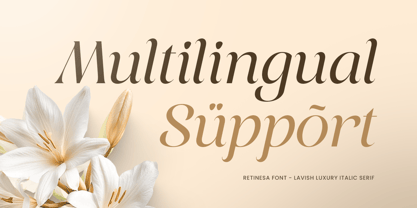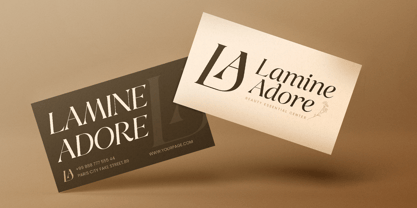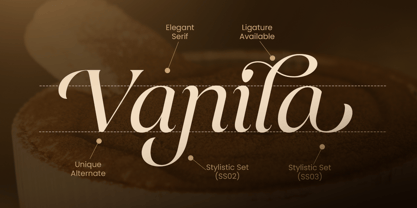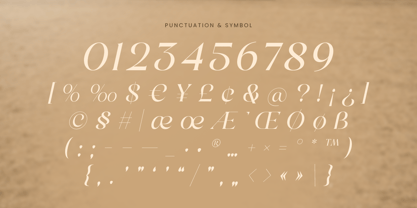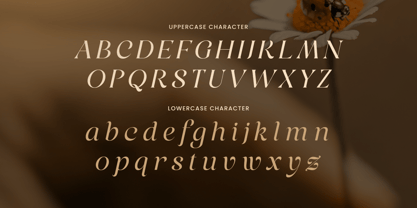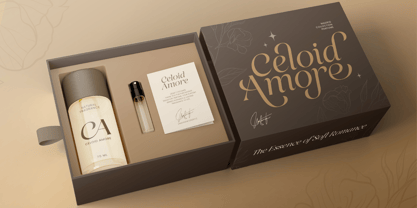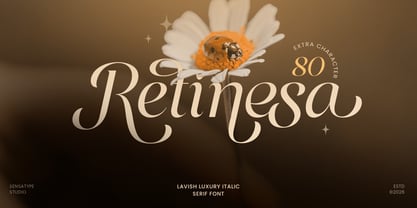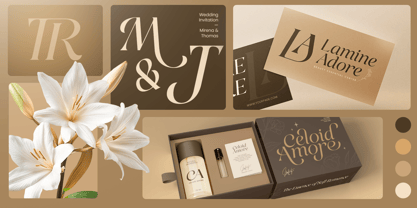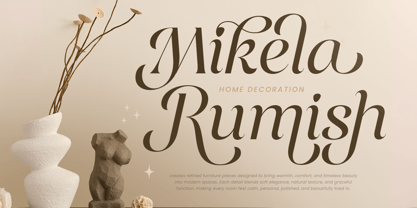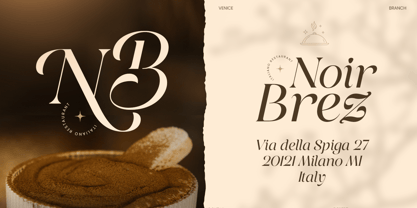
Retinesa
Retinesa is a lavish luxury italic serif font crafted to bring elegance, movement, and premium character into your visual identity. With graceful italic forms, refined serif details, and sophisticated proportions, this typeface is perfect for luxury branding, fashion editorials, premium packaging, wedding stationery, and elegant logo design.
Designed for creators who want typography with flow and prestige, Retinesa combines classic serif beauty with a stylish italic rhythm. Its expressive slant gives every word a sense of motion, refinement, and exclusivity, making it ideal for magazine headlines, boutique branding, beauty labels, invitations, and high-end promotional visuals.
Whether used as a logo mark, editorial title, packaging centerpiece, or elegant quote design, Retinesa delivers a polished and memorable impression across both print and digital media.
Retinesa – Lavish Luxury Italic Serif Font Features
• Lavish italic serif design with luxury visual character
• Perfect for branding, editorials, packaging, invitations, and premium logos
• Elegant slanted letterforms with refined serif details
• Ideal for fashion, beauty, wedding, boutique, and lifestyle industries
• Uppercase, lowercase, numerals, and punctuation included
• OpenType features for enhanced typographic styling
Multilingual support for Afrikaans, Albanian, Asu, Basque, Bemba, Bena, Breton, Chiga, Cornish, Dutch, English, Estonian, Filipino, Finnish, Friulian, Galician, German, Gusii, Indonesian, Irish, Italian, Kabuverdianu, Kalenjin, Kinyarwanda, Luo, Luxembourgish, Luyia, Machame, Makhuwa-Meetto, Makonde, Malagasy, Manx, Morisyen, North Ndebele, Nyankole, Oromo, Portuguese, Quechua, Romansh, Rombo, Rundi, Rwa, Samburu, Sango, Sangu, Scottish Gaelic, Sena, Shambala, Shona, Soga, Somali, Spanish, Swahili, Swedish, Swiss, and more.
Create graceful luxury with Retinesa – the perfect italic serif font for premium branding, elegant editorials, and refined visual design. ✨👑